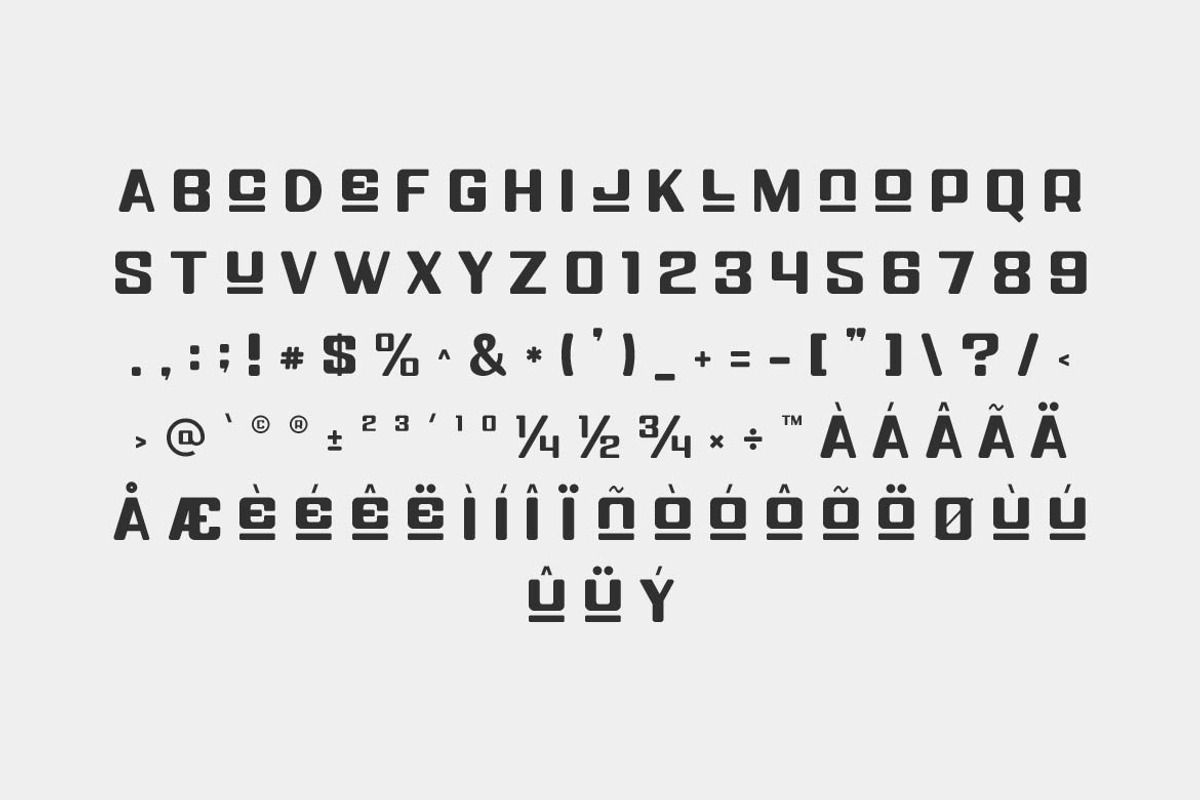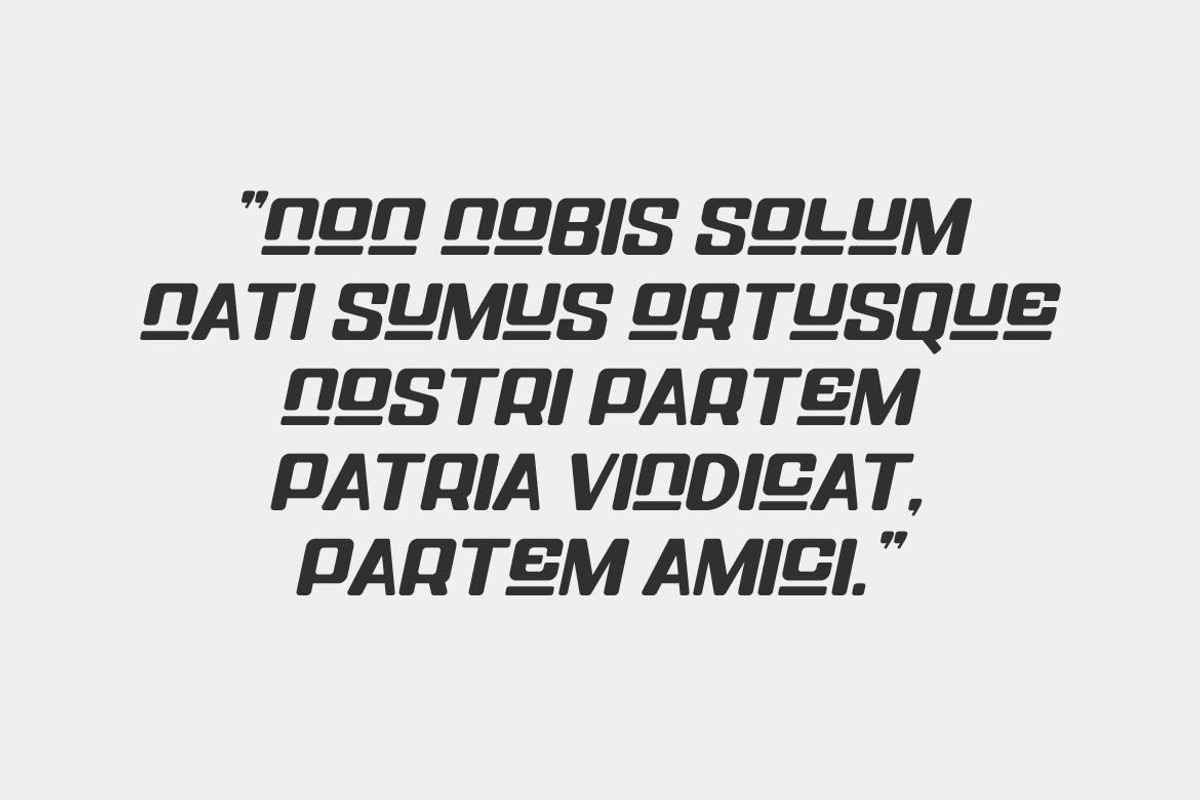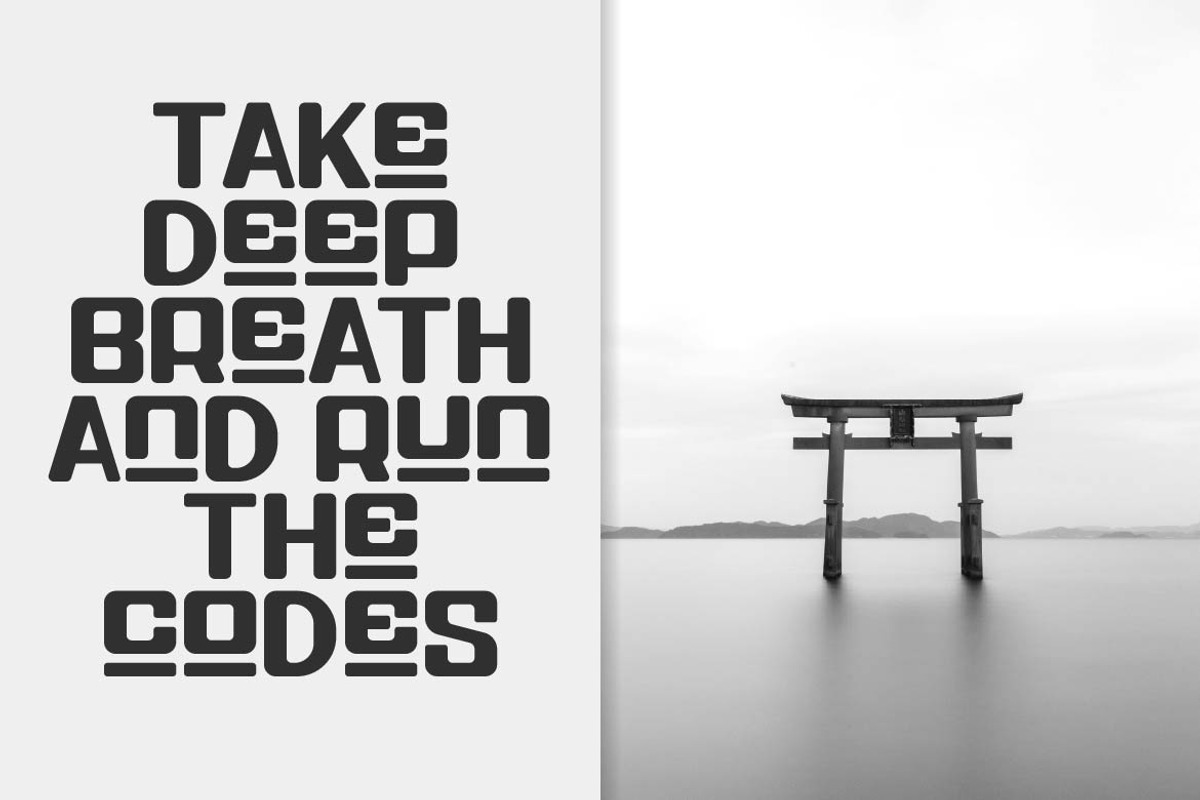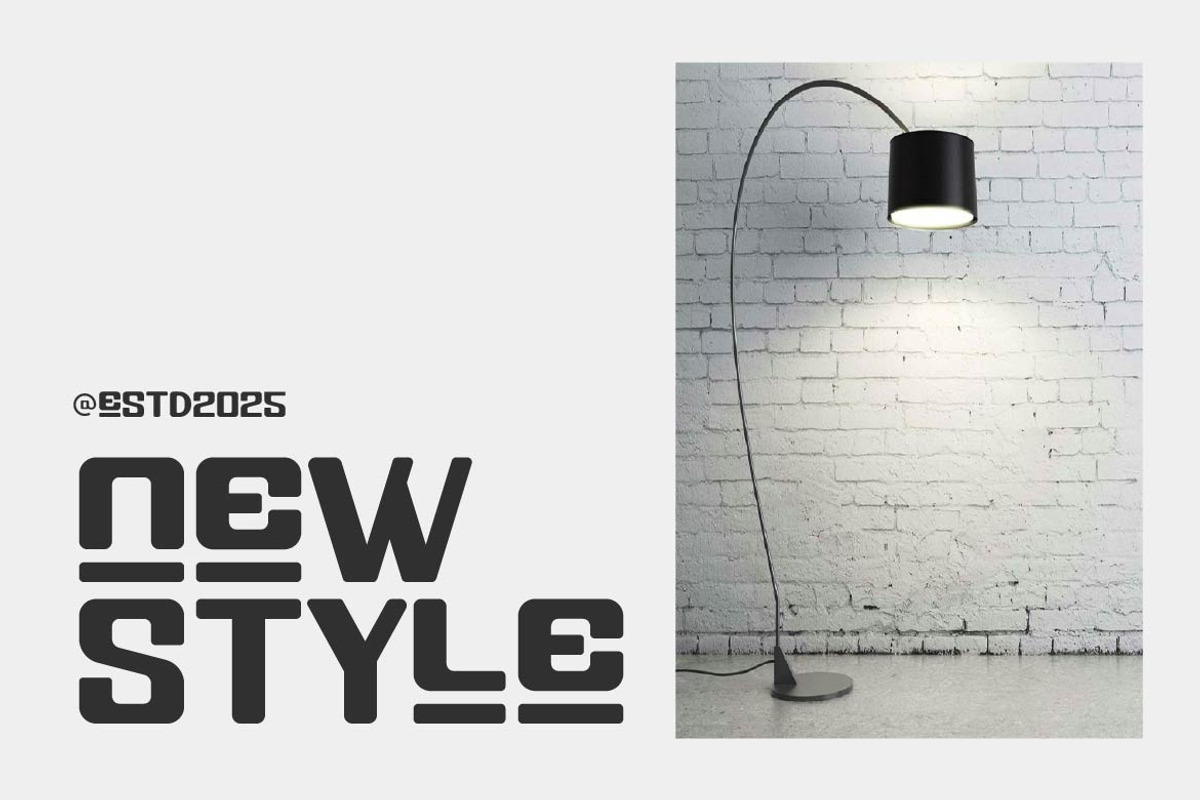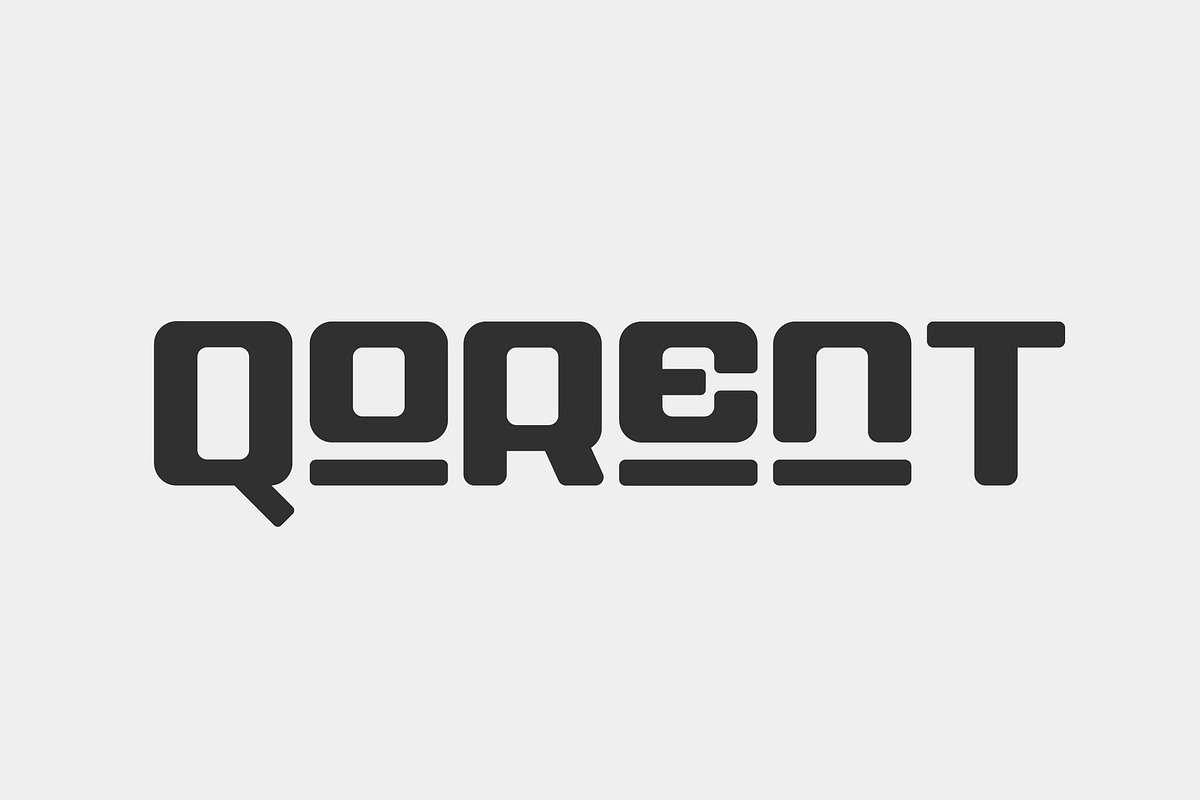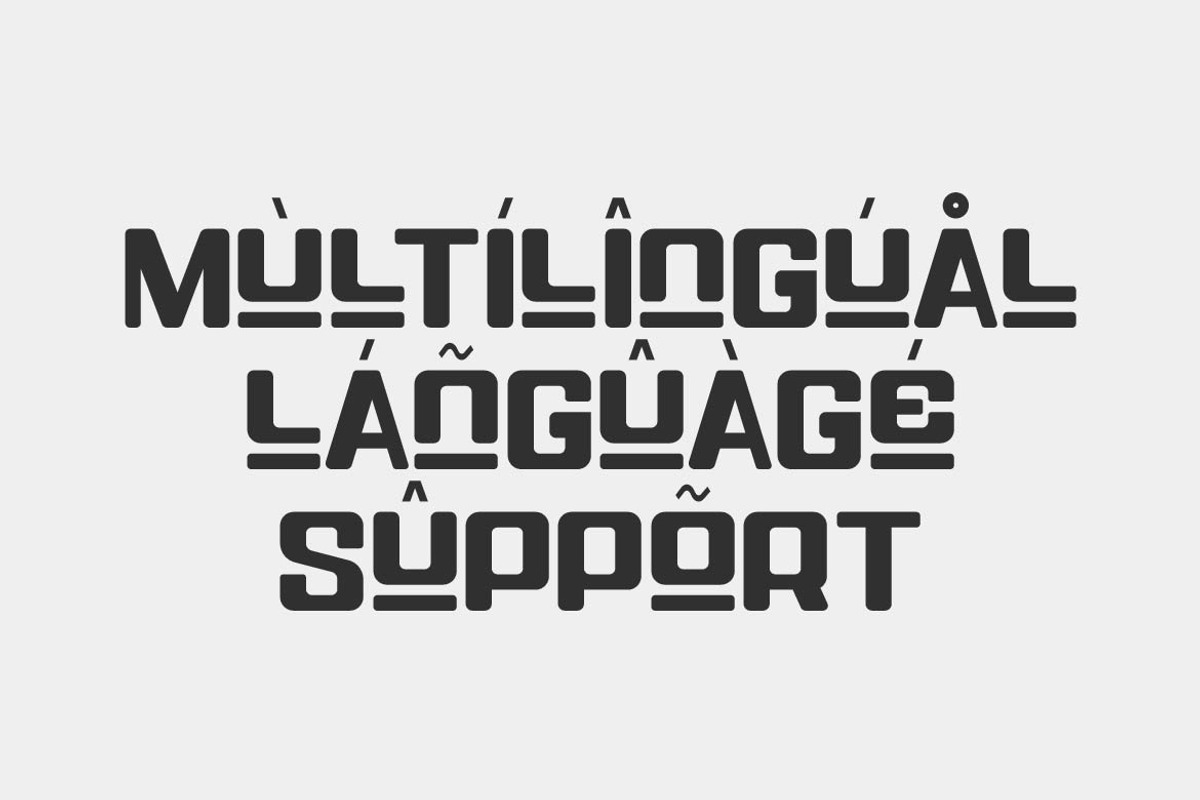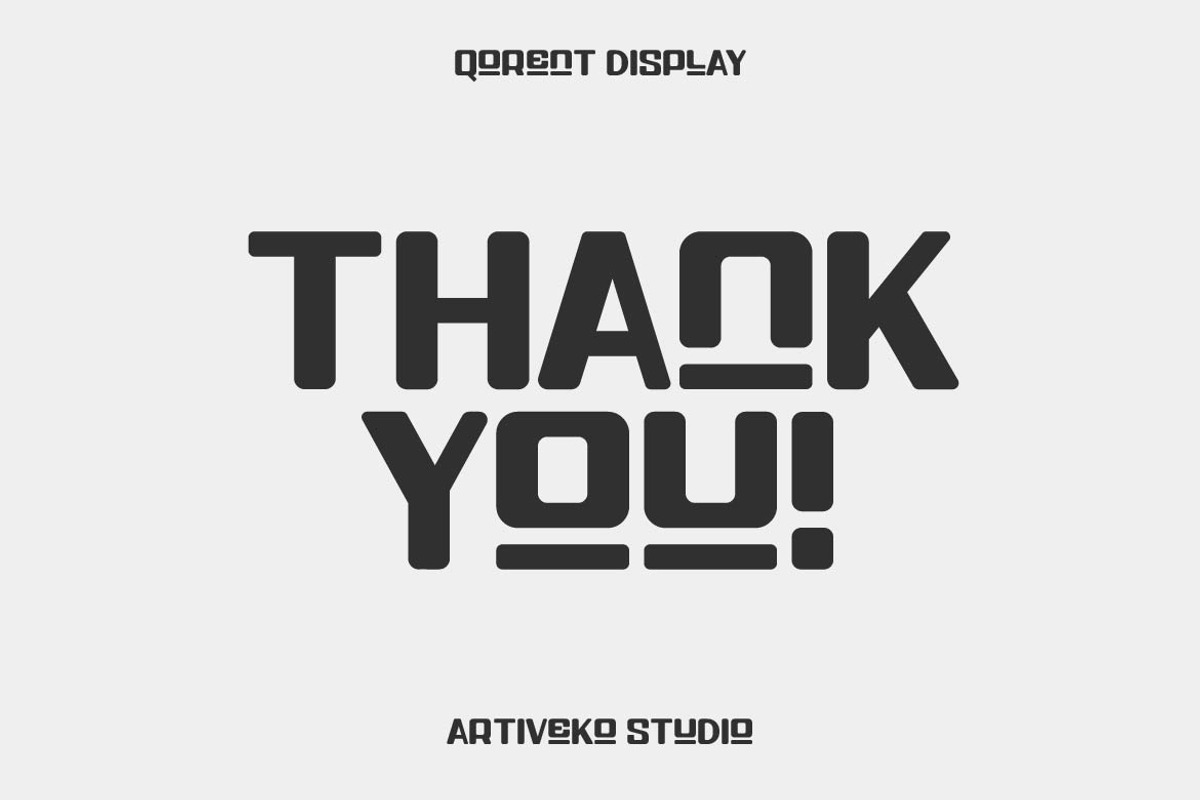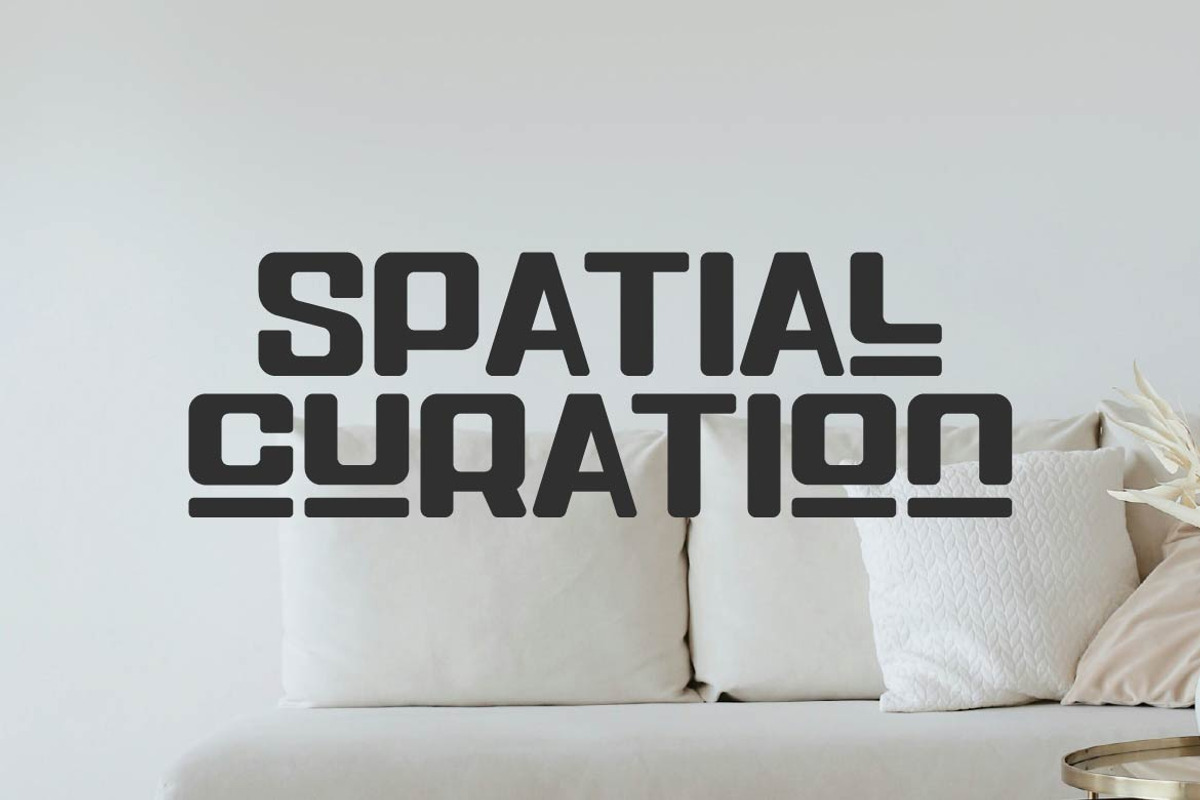
Qorent Display Bold Sans
Qorent is a creative display font designed to break the mold and spark imagination. With its expressive shapes, unexpected curves, and artistic flair, Qorent turns every letter into a visual centerpiece. This is not your everyday font — it’s made for headlines that stand out, logos that leave an impression, and designs that dare to be different.